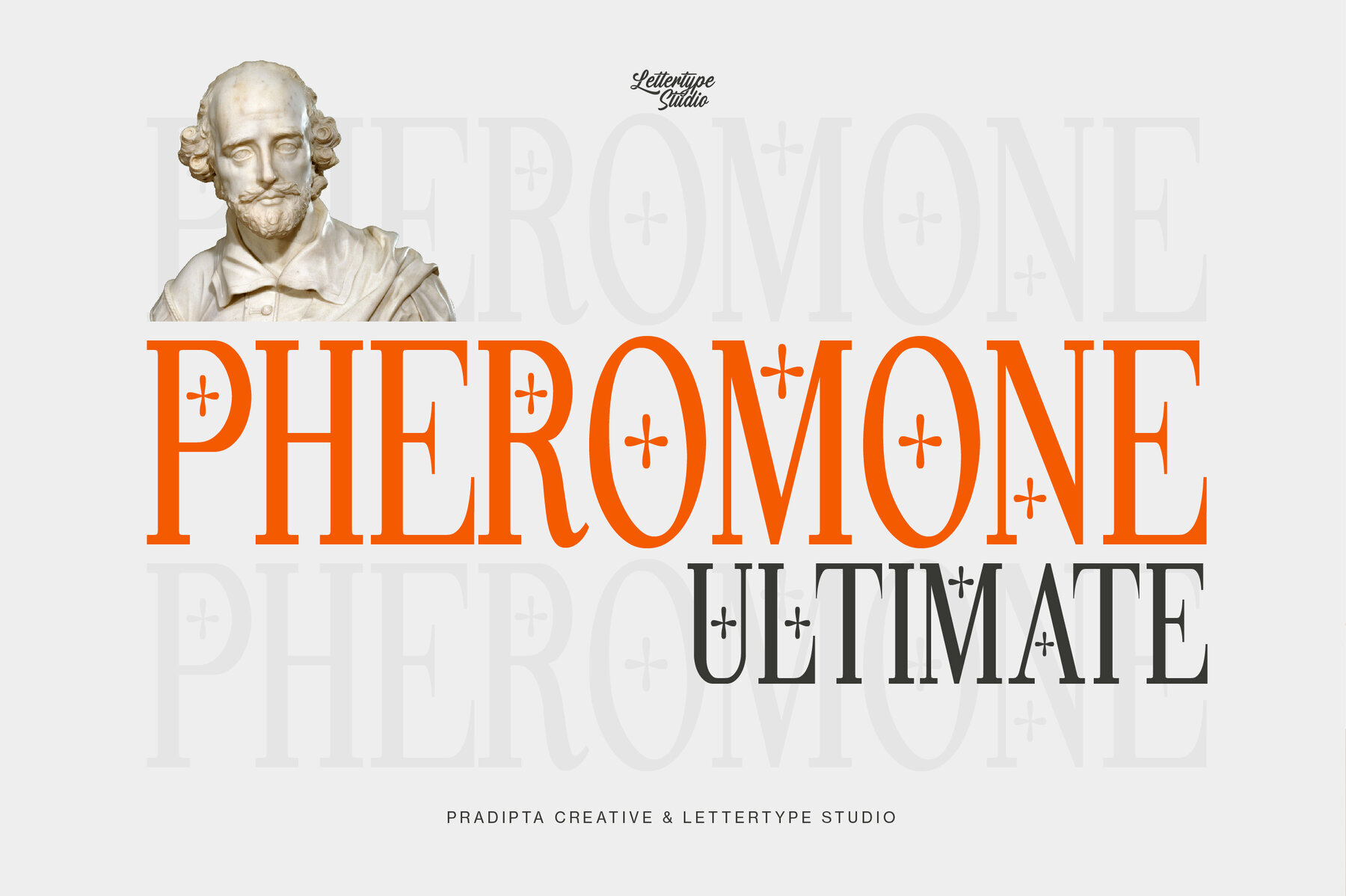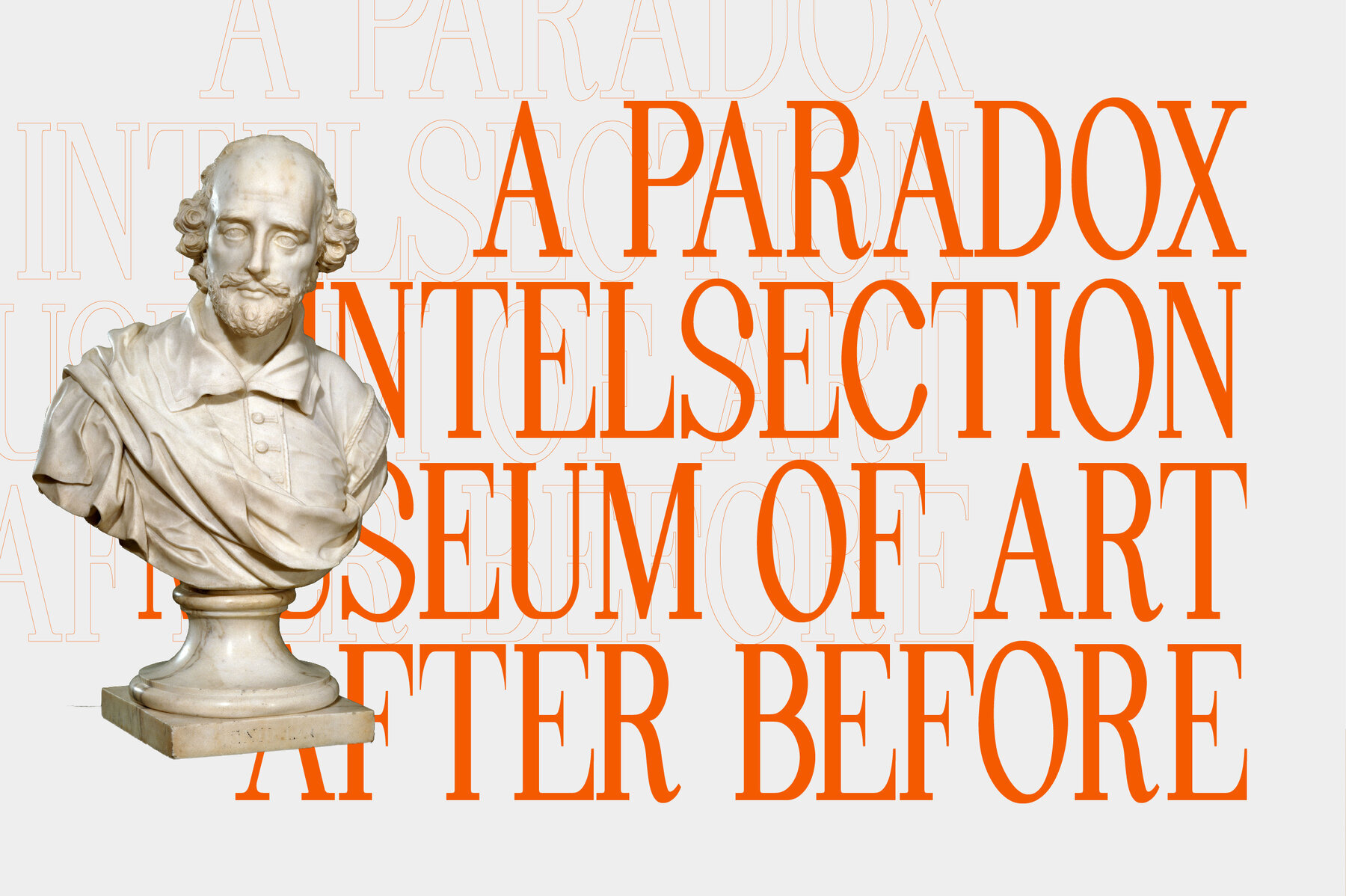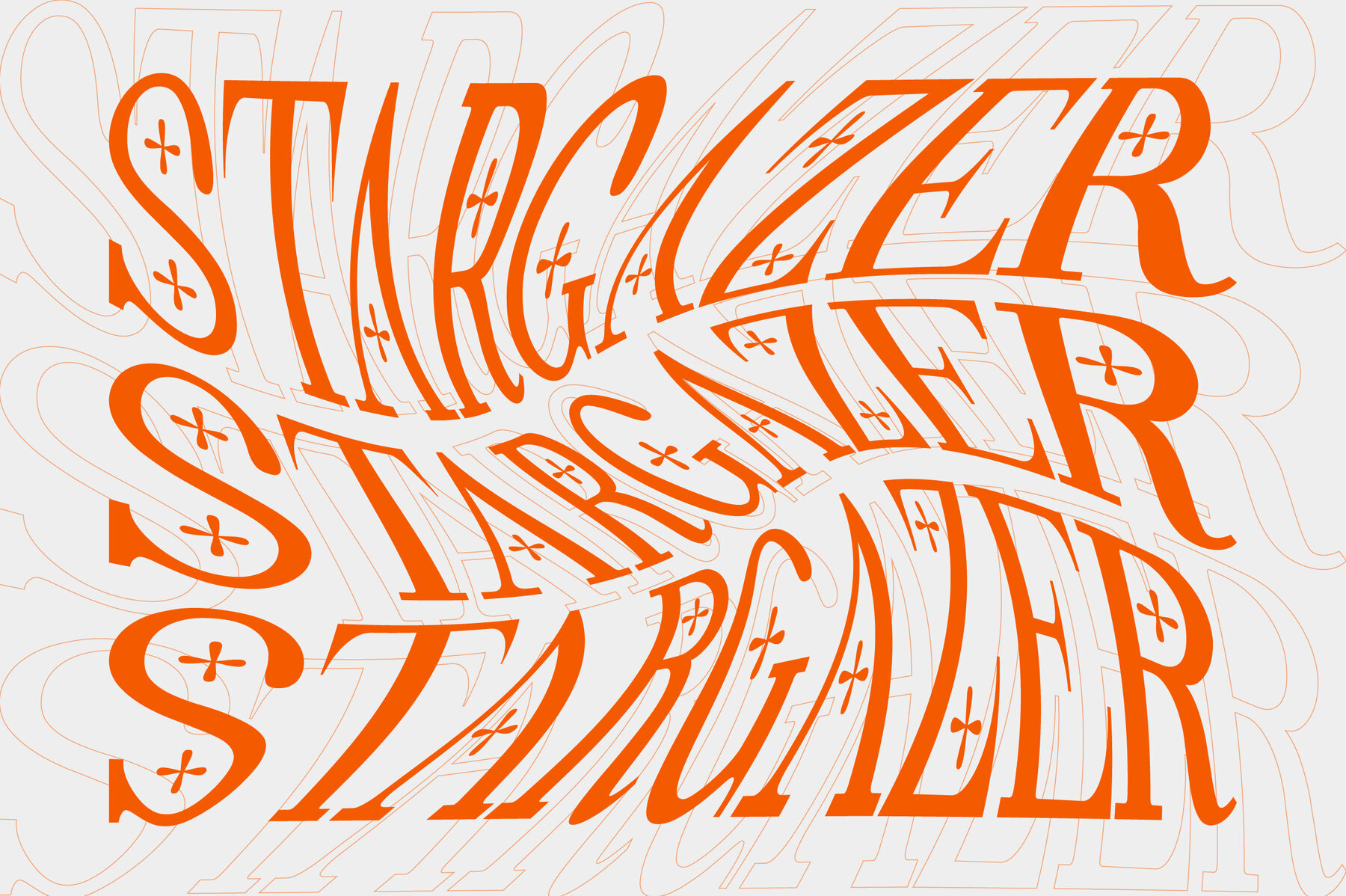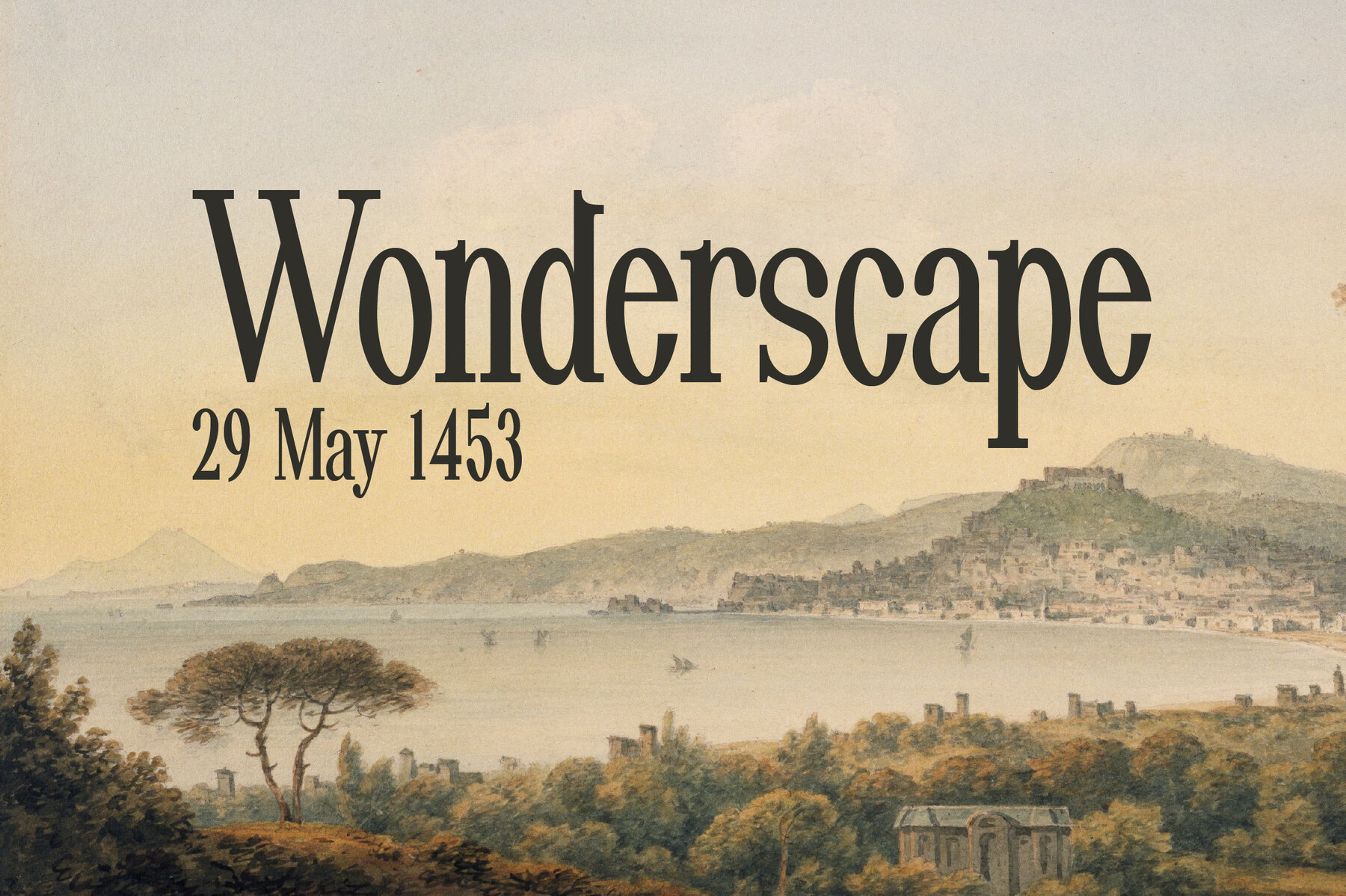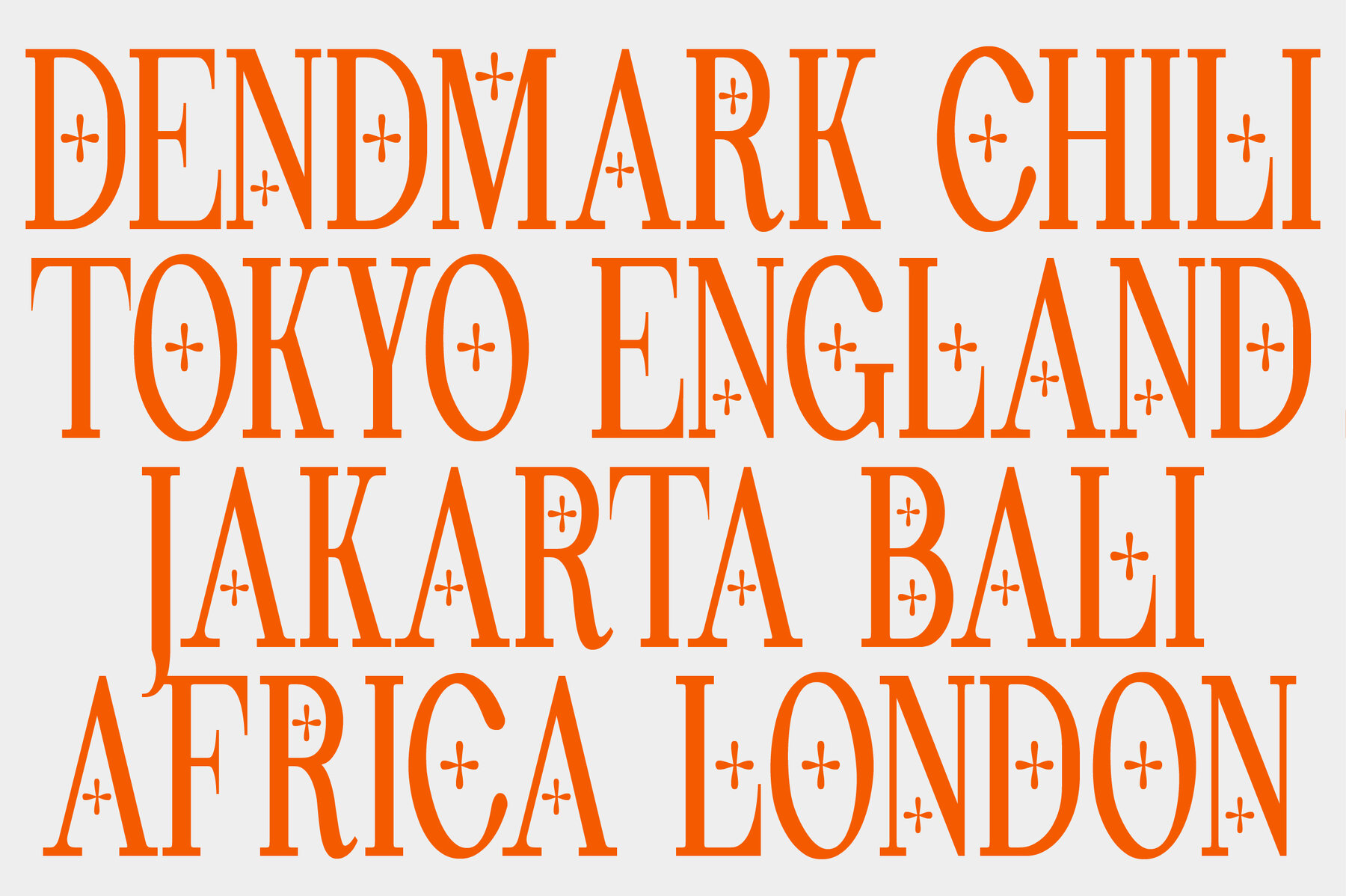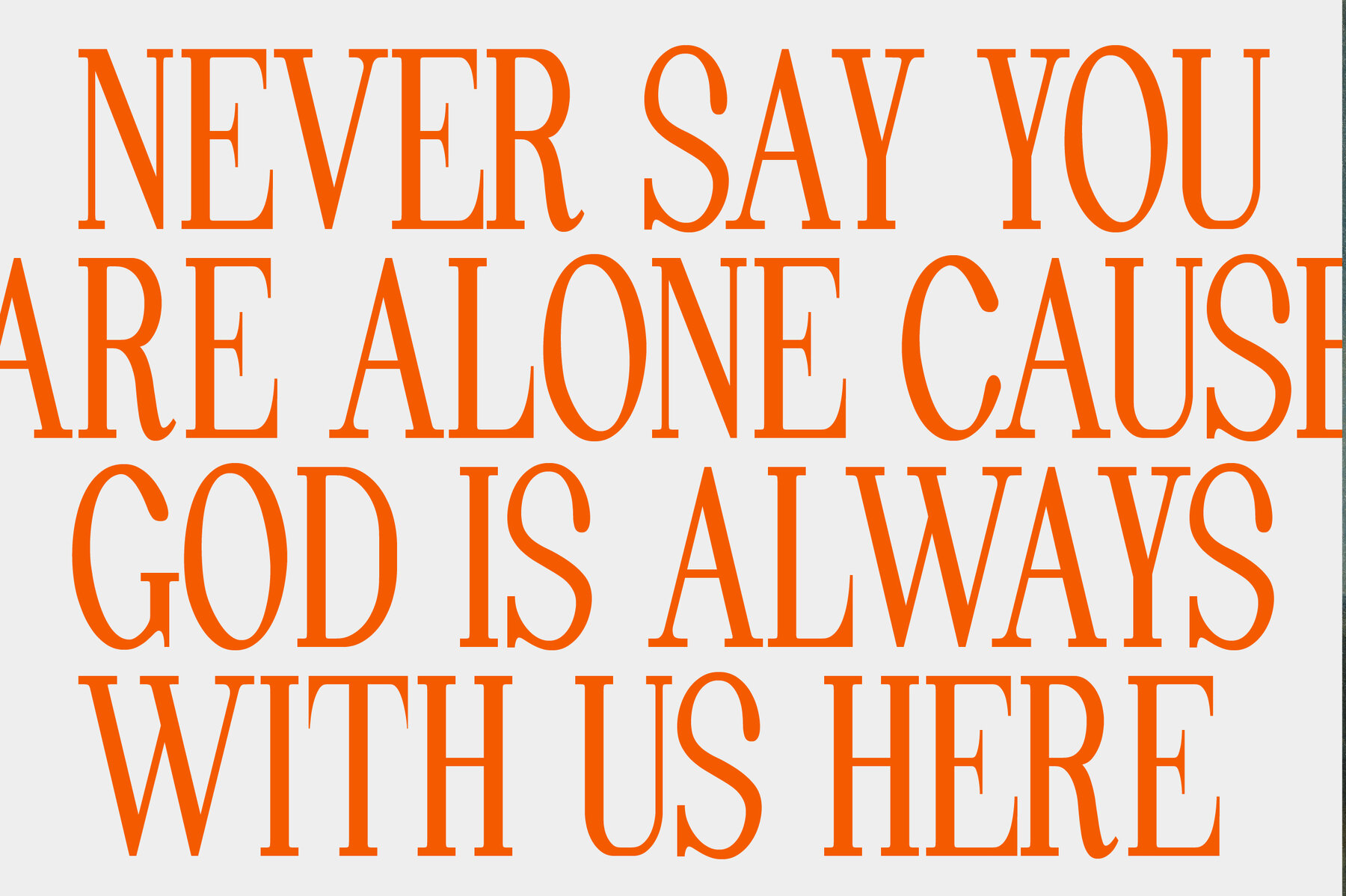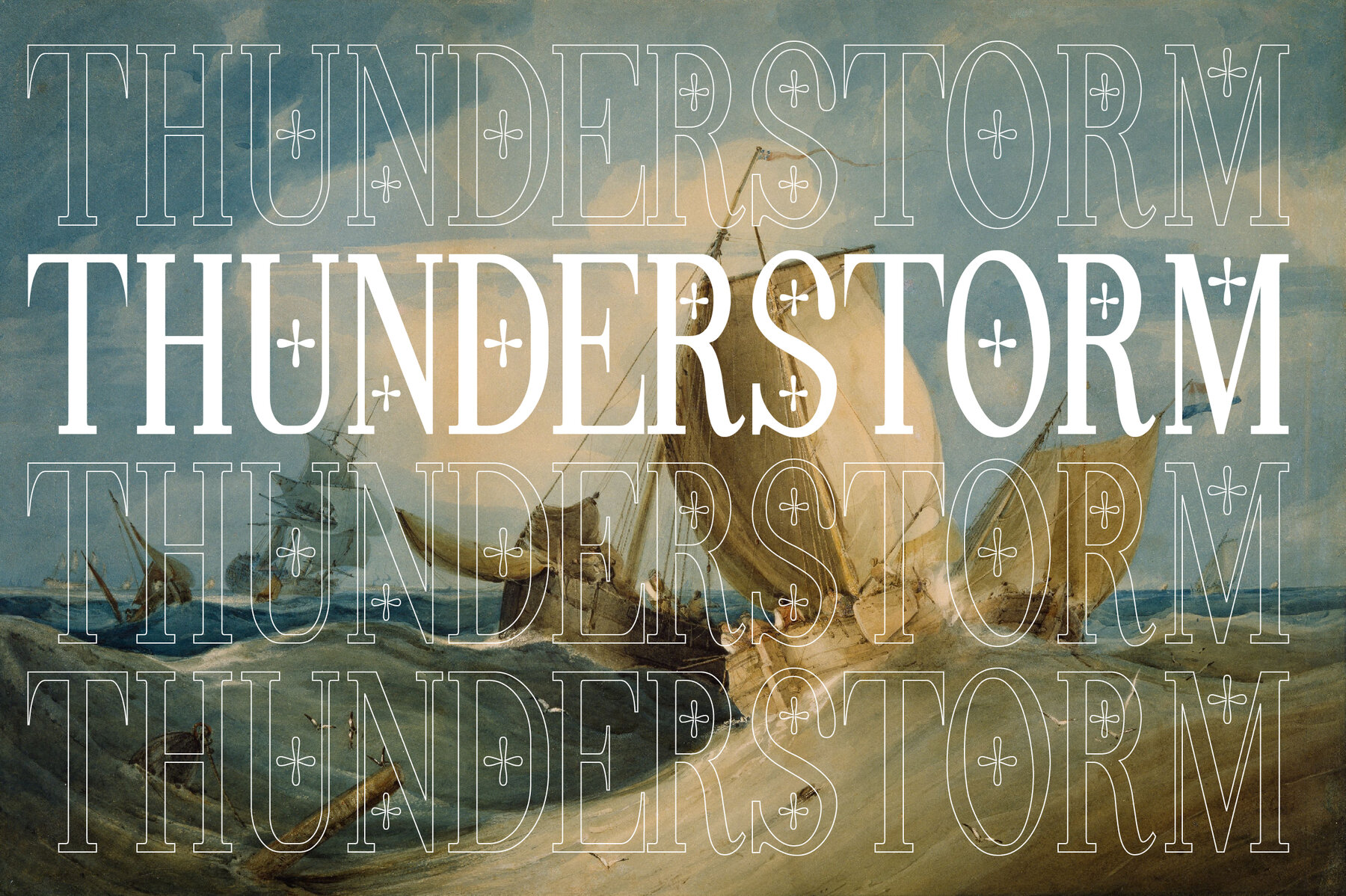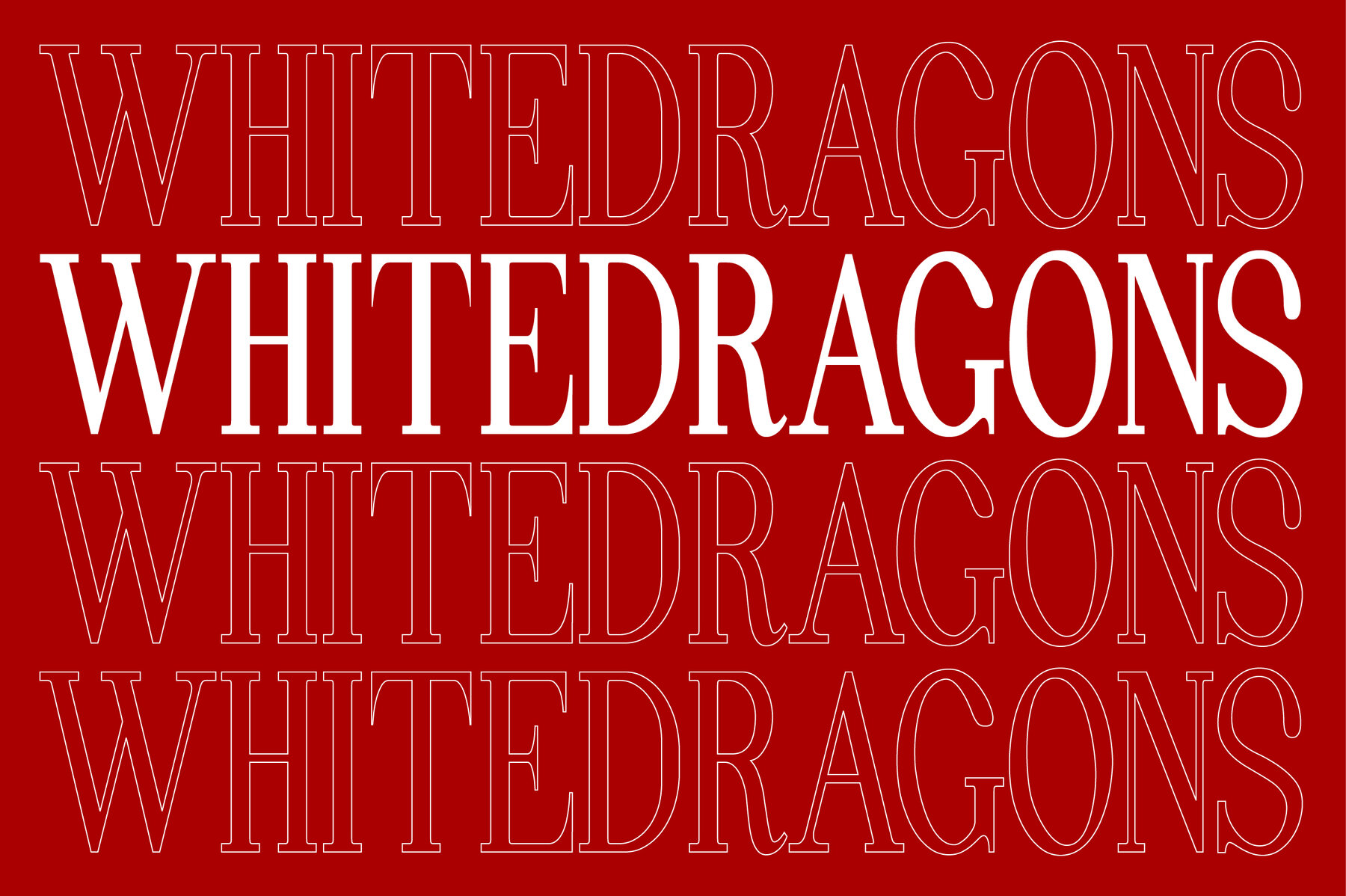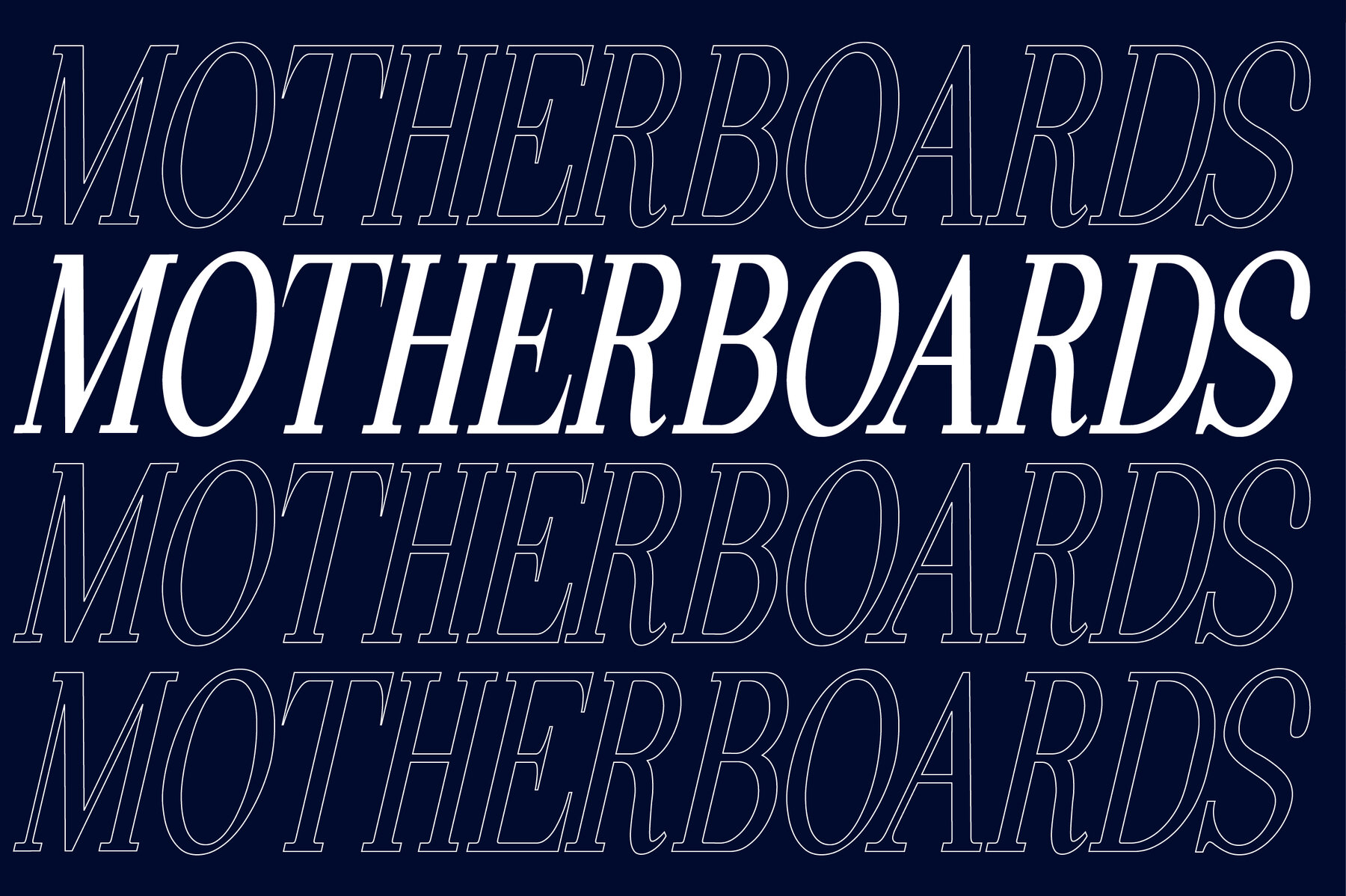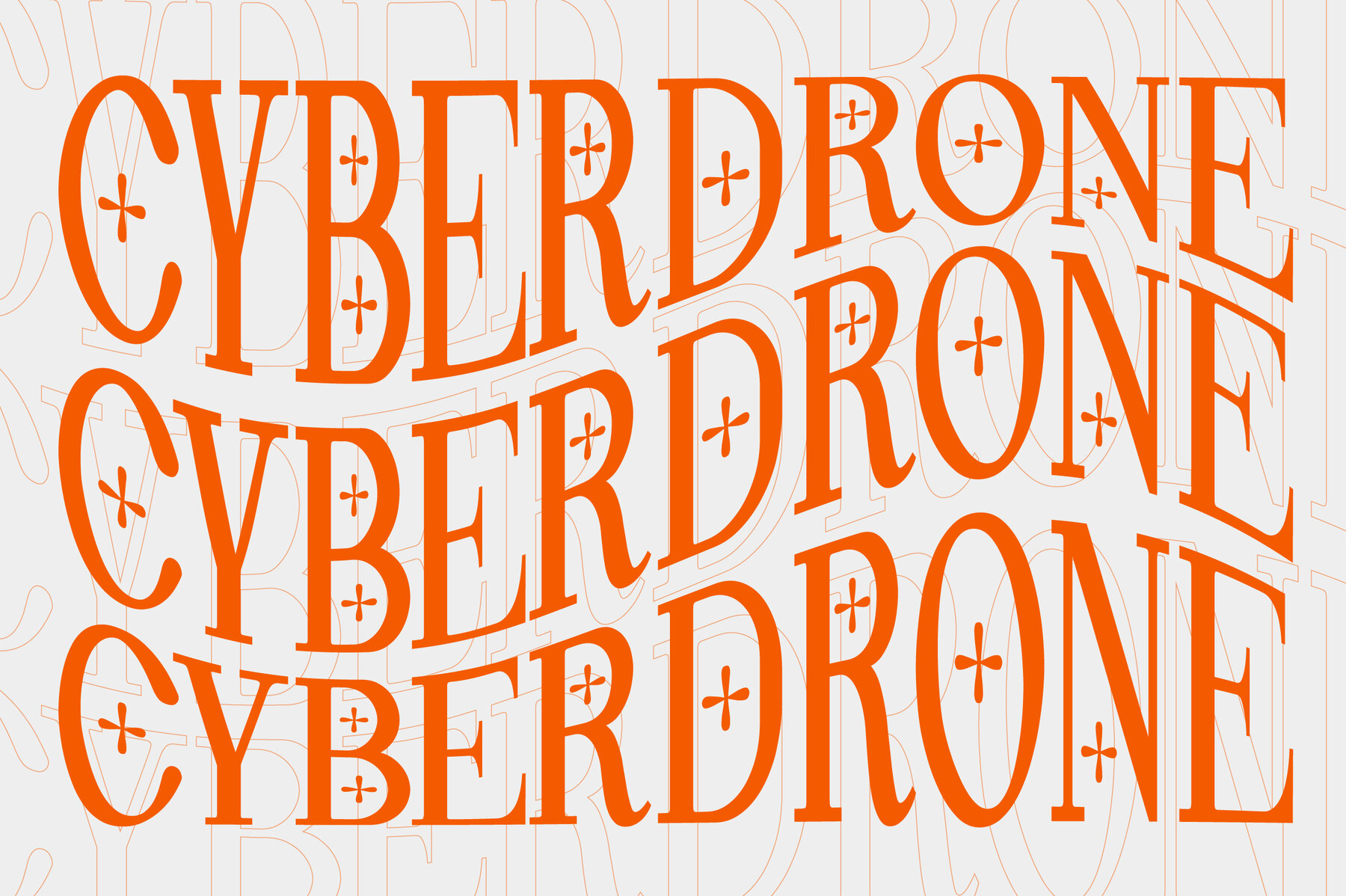
Pheromone Font
The Pheromone font, with its striking contrast and blend of modern and classic influences, is designed to catch the eye and serve as an ideal choice for headlines. Its condensed style ensures standout visibility, making it a centerpiece in typography. With versatility at its core, Pheromone excels in applications ranging from logos and branding to clothing labels, signage, and beyond. Whether used in wedding invitations or fashion projects, this serif font delivers a unique vintage charm. Pheromone Features:Pheromone: High-Contrast Serif Font for Impactful Design